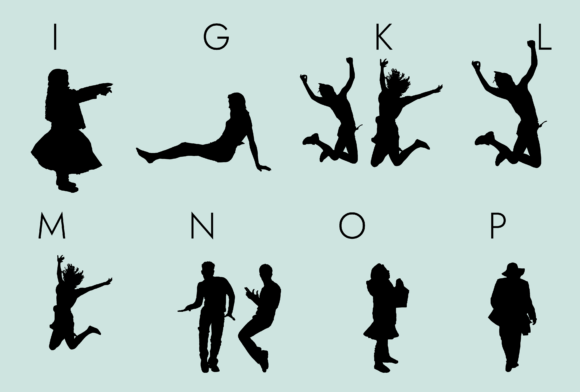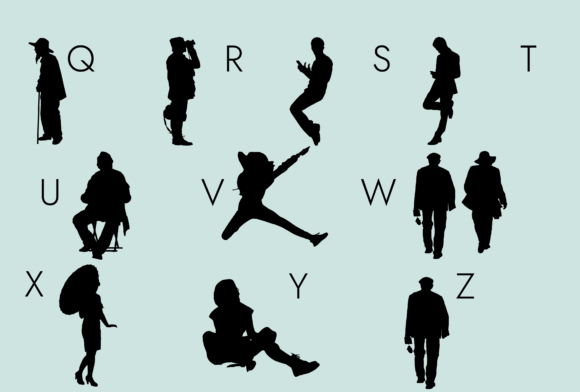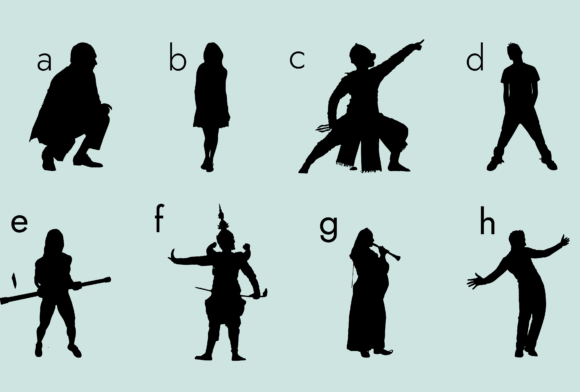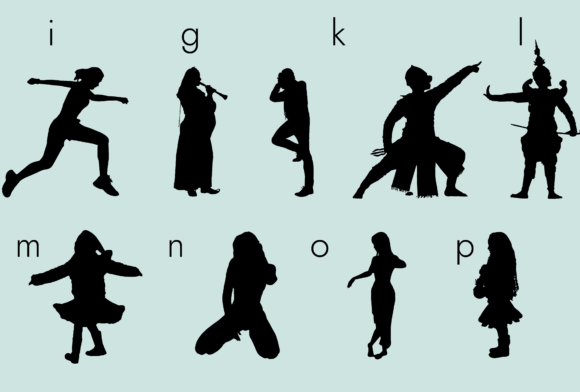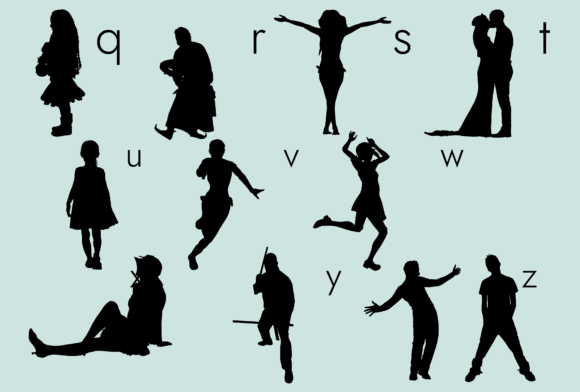
Introduction to People Silhouettes 2.0 Font
People Silhouettes 2.
0 is a beautiful dingbats font that allows you to generate unique and well-done people silhouettes by only typing letters or numbers You will definitely love this creative font.
Key Features of People Silhouettes 2.0 Font